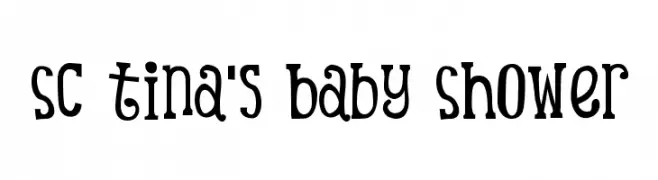
A playful, hand-drawn font with irregular strokes and a whimsical style.
A pictographic, decorative font mimicking ancient stone carvings.
A classic serif font with bold, elegant characters and sharp serifs.
A bold, playful font with geometric flair and strong presence.
A bold, geometric font with a modern and strong presence.
A modern, geometric font with sharp angles and smooth curves, perfect for contemporary designs.
A rugged, distressed font with a hand-drawn, textured appearance.
A bold, decorative font with whimsical, medieval-inspired elements.
A bold, gothic-inspired font with sharp serifs and thick strokes.
A bold, angular font with a metallic and industrial aesthetic.
A bold, angular font with a metallic outline and futuristic design.
A bold, angular font with a futuristic and industrial design.
A playful and whimsical font with quirky, bold letterforms and unique character designs.
A whimsical and playful font with quirky letterforms and dynamic strokes.
A bold, decorative Blackletter-style font with intricate detailing.
A bold, ornate blackletter font with intricate, medieval-inspired letterforms.
A modern, geometric sans-serif font with a clean and professional appearance.
A bold, modern sans-serif font with clean lines and strong presence.
A sleek, modern italic font with clean lines and a professional look.
A modern, clean sans-serif font with uniform strokes and balanced spacing.
An elegant, classic script font with flowing, connected characters.
A playful, hand-drawn font with bold, irregular strokes and a casual style.
A bold, angular font with a geometric and dynamic style.